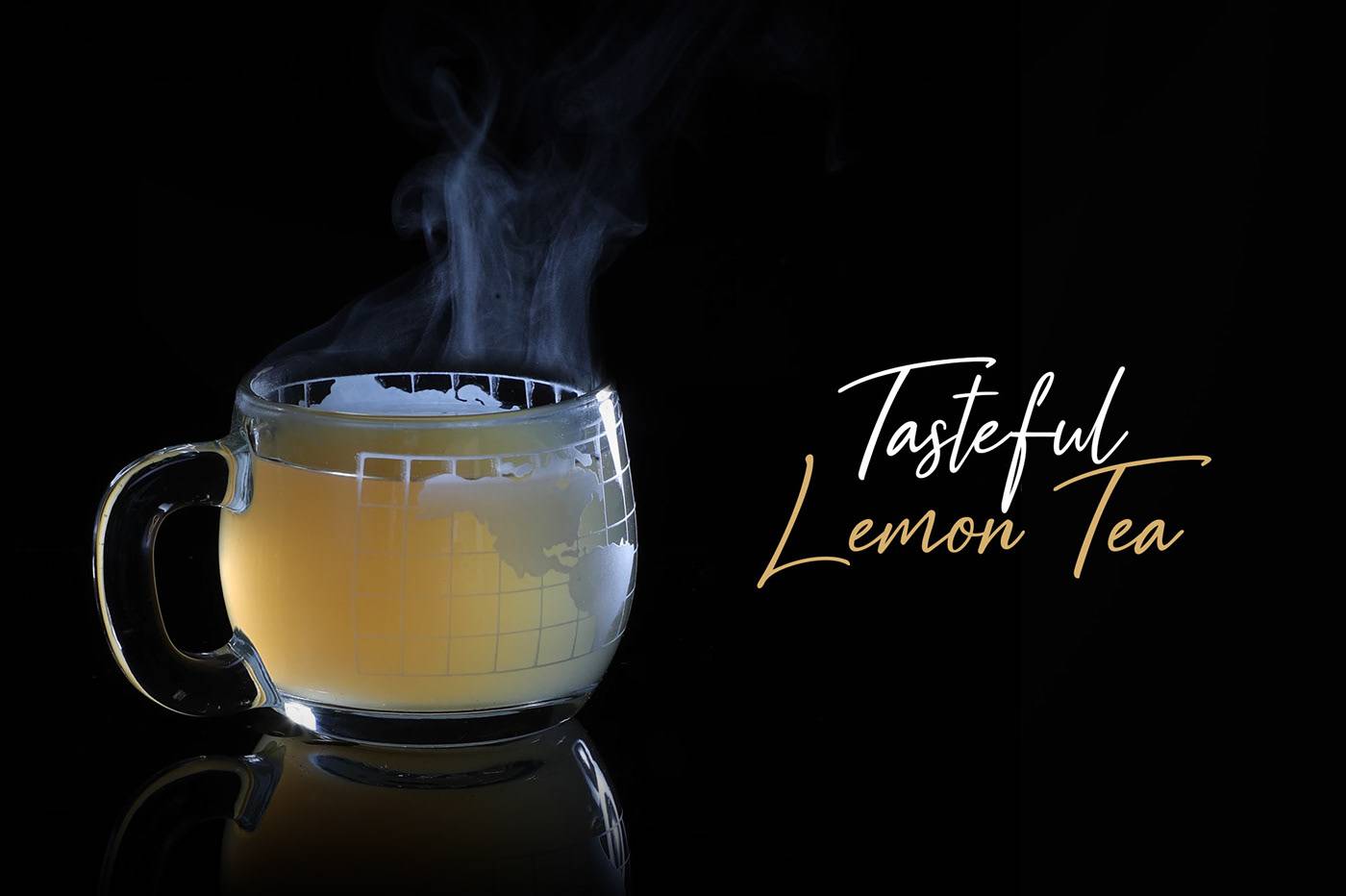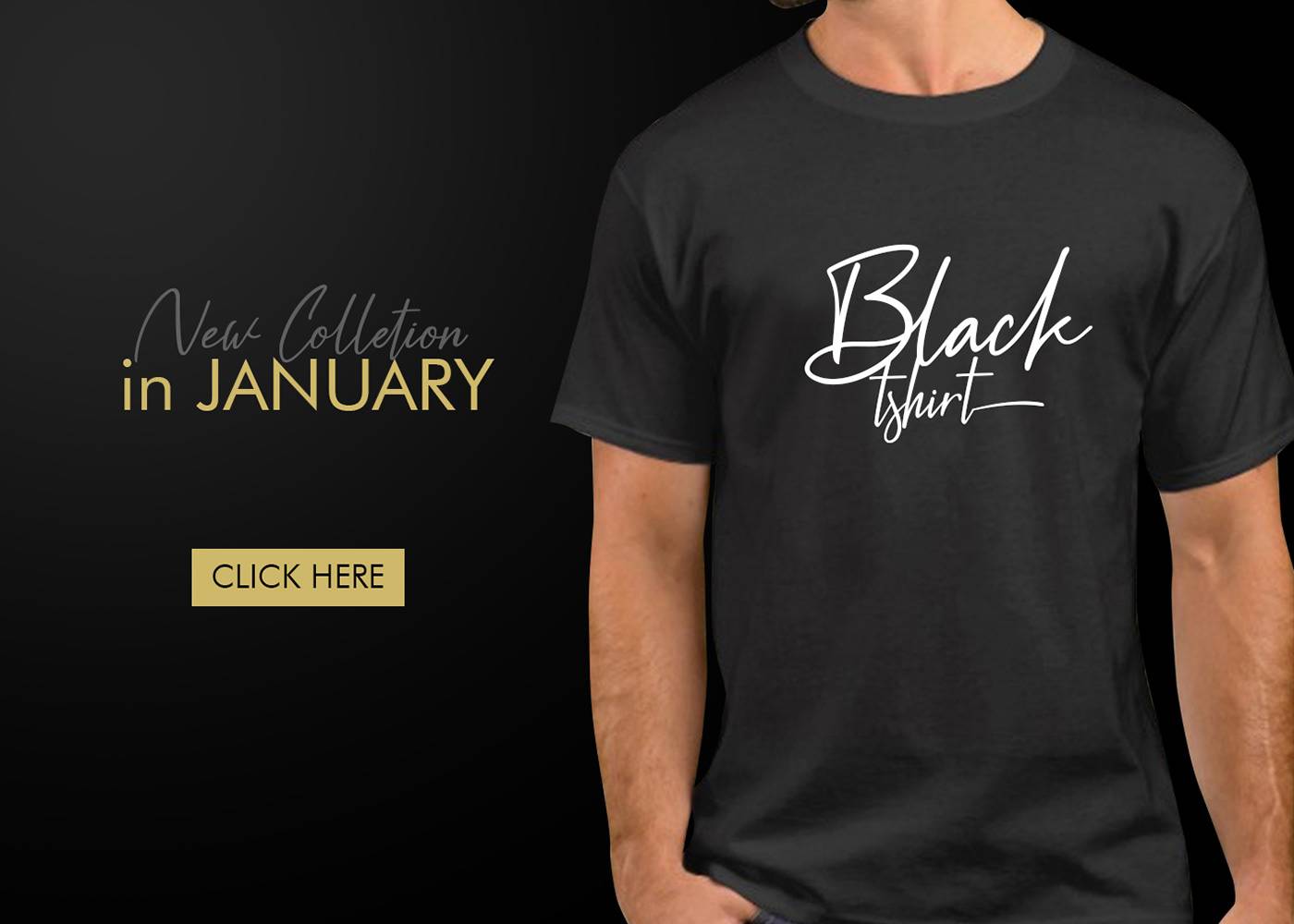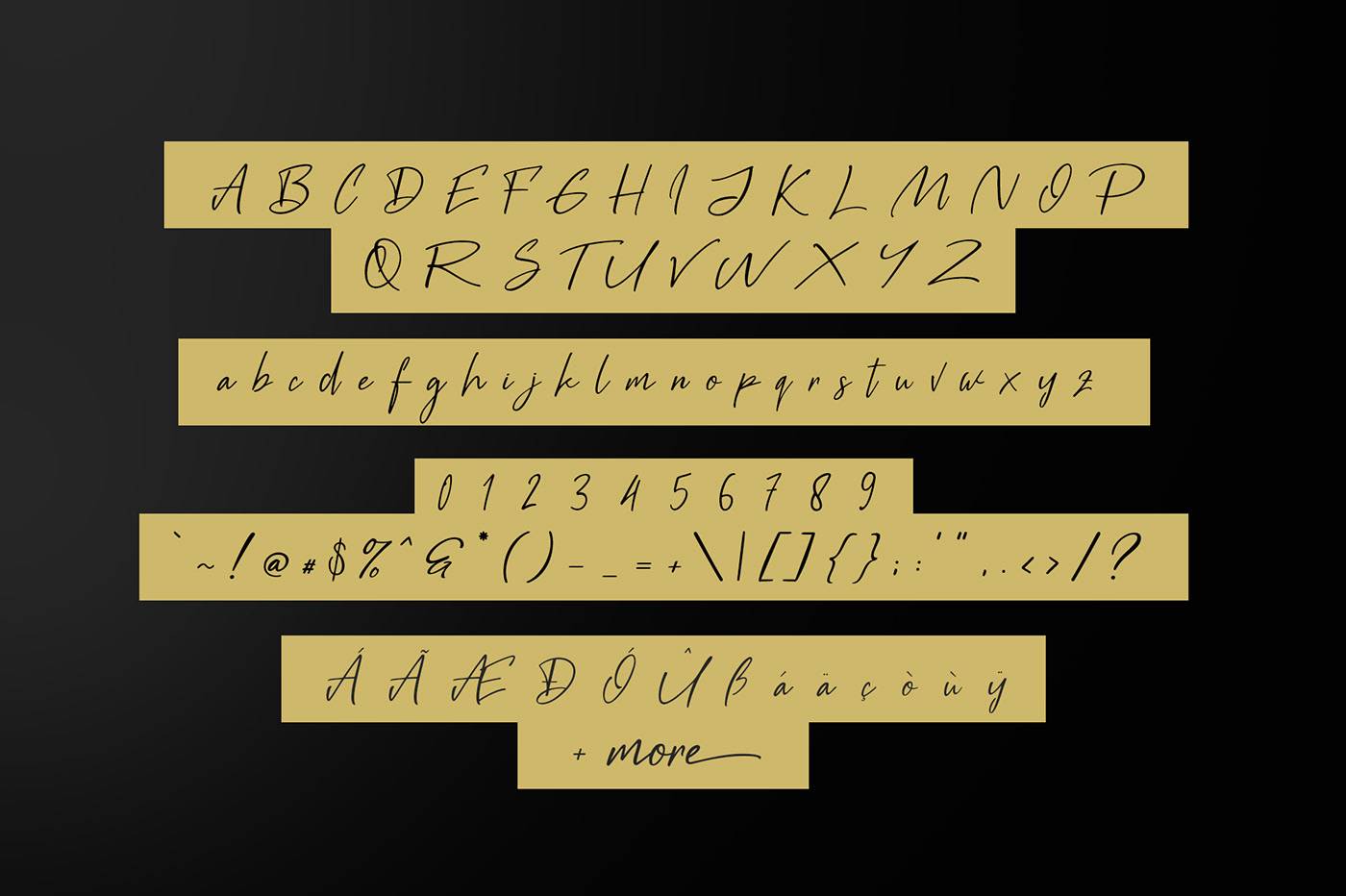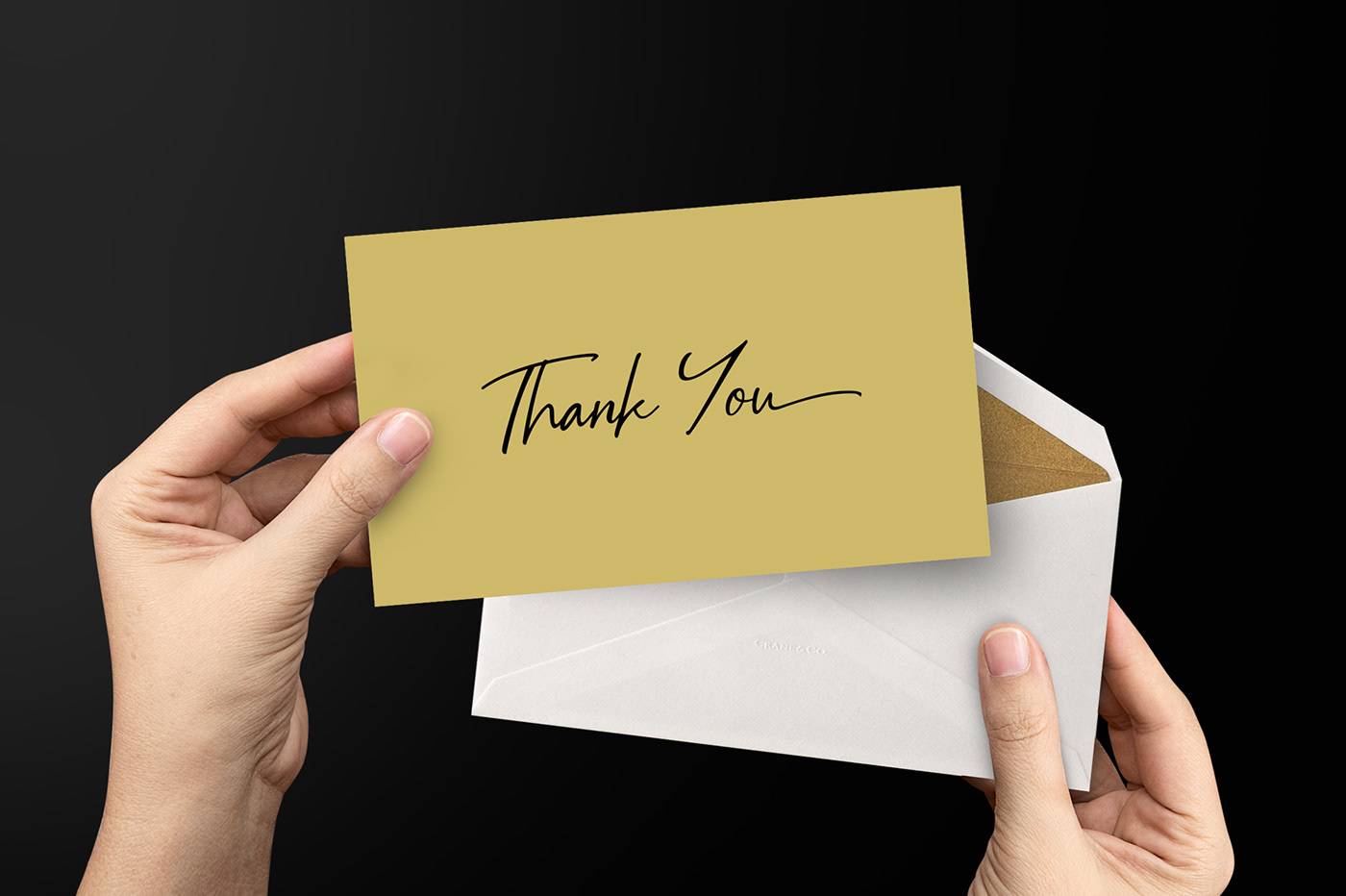
Black Pen Script Demo is a delicate, handwritten script font that mimics smooth, elegant penmanship with its slender, flowing strokes and high contrast between thin and slightly thicker lines. Its light, airy style and unique letterforms give it a personal, artistic feel, making it ideal for invitations, logos, and creative branding that seeks a sophisticated yet approachable touch. This font works best in decorative or headline uses where its fine details can shine without losing readability.
Black Pen Script Demo Font
About Black Pen Script Demo Font